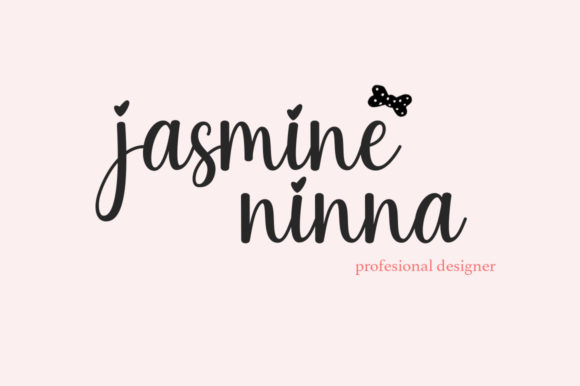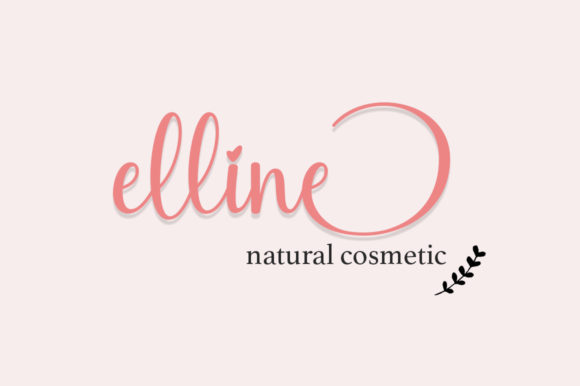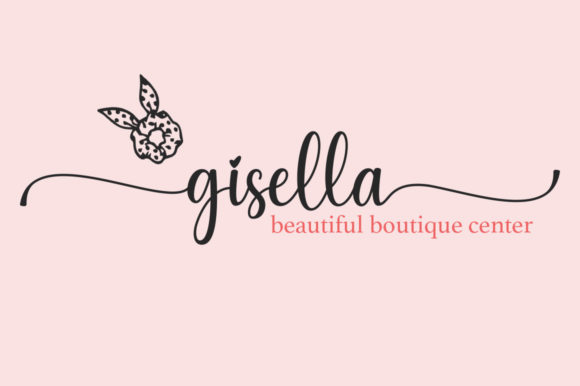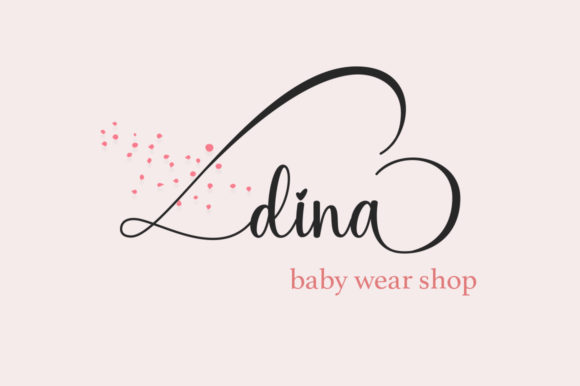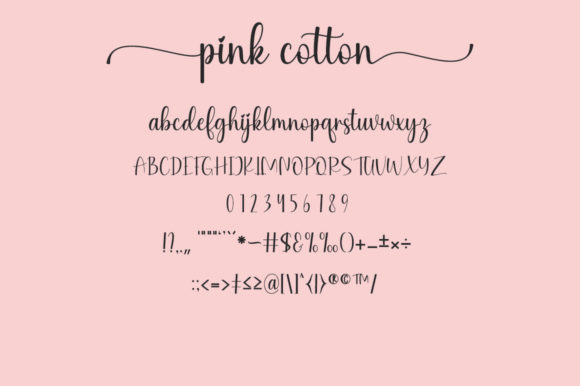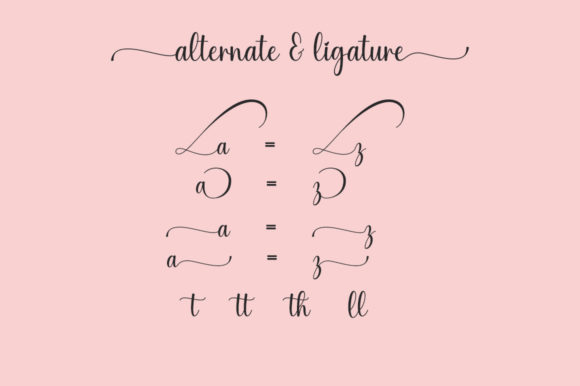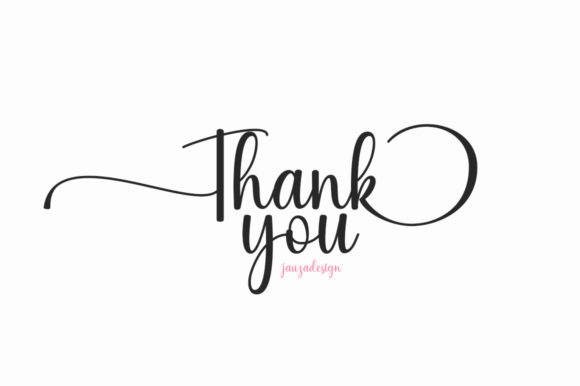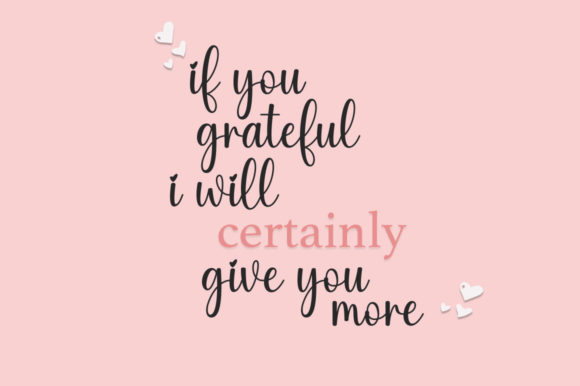
Pink Font
About Pink Font
Pink is a thin lettered and delicate script font. It is PUA encoded which means you can access all of the amazing glyphs and ligatures with ease!